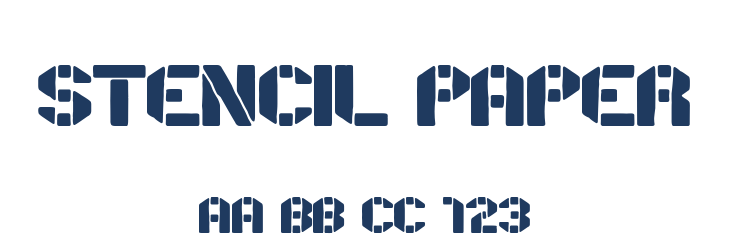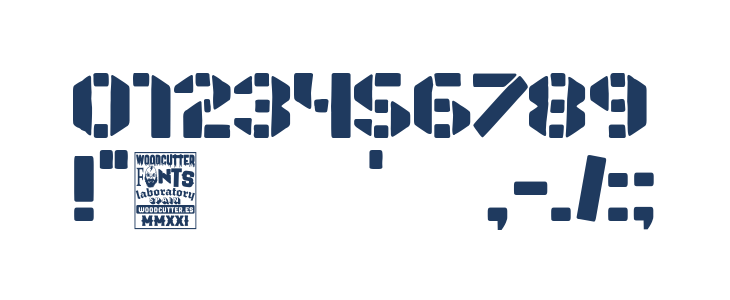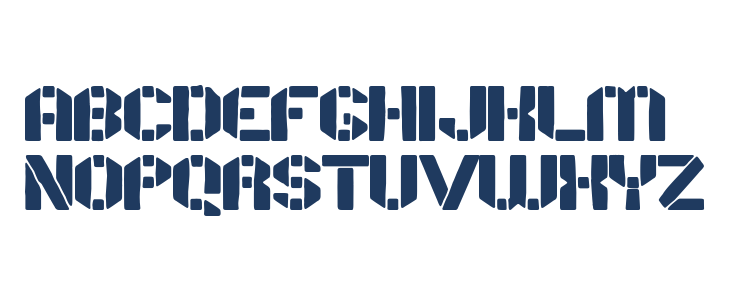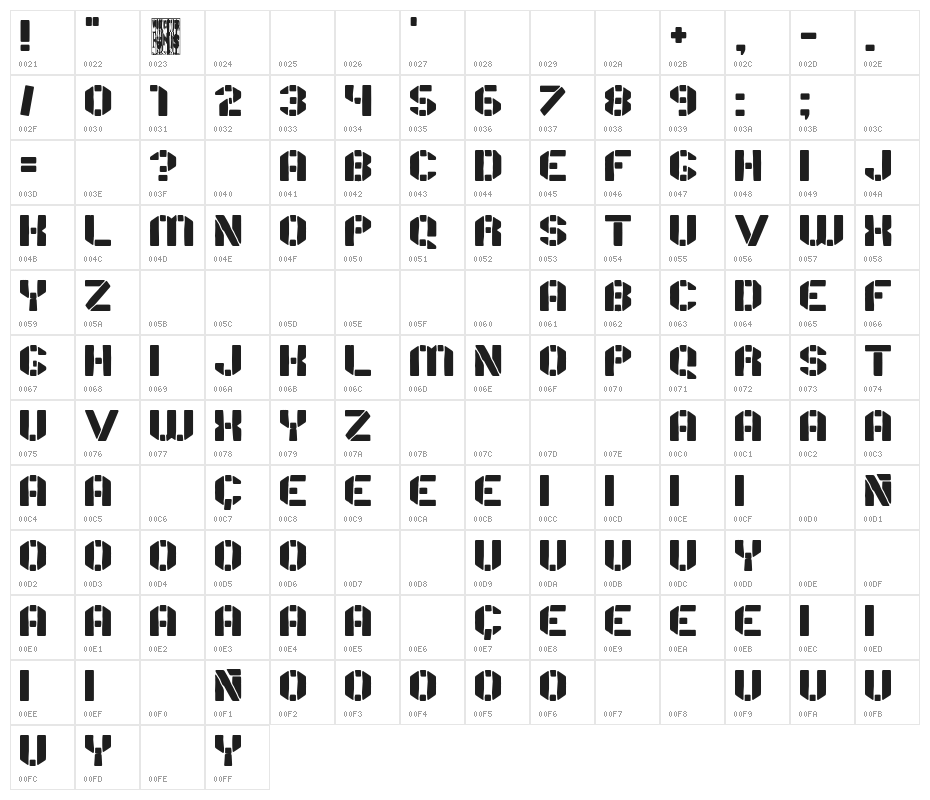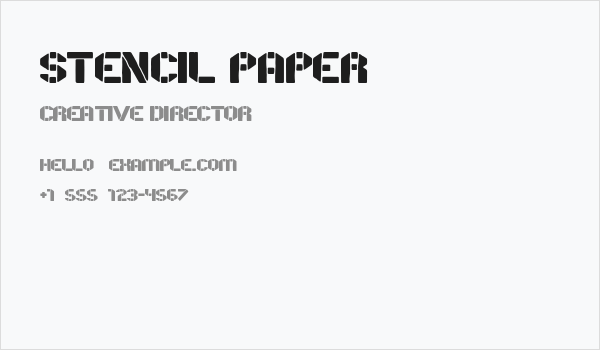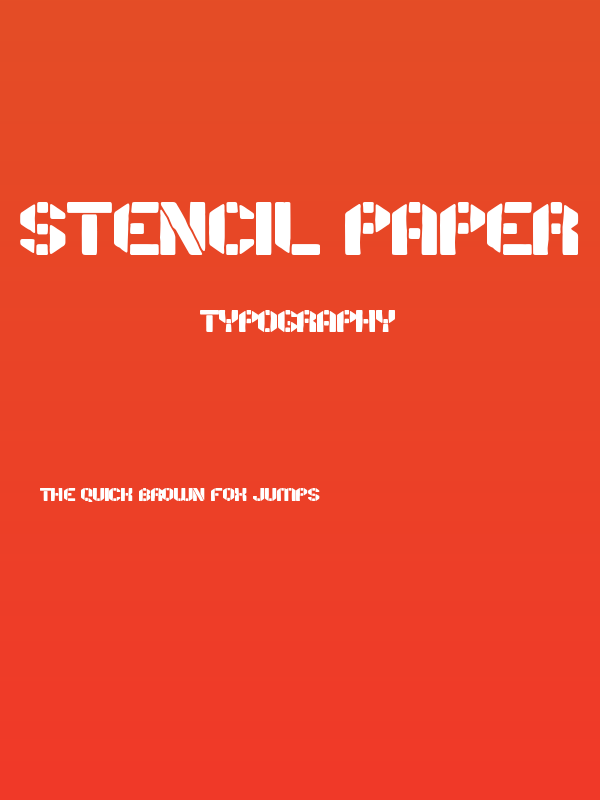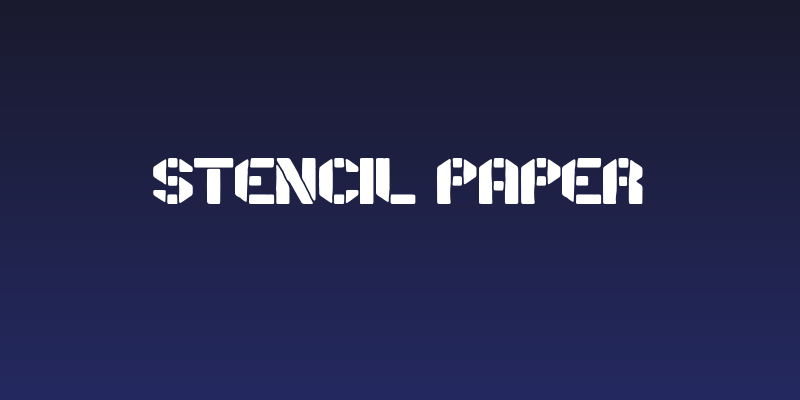
Stencil Paper Font
Stencil Paper Description
A bold, geometric stencil-style font with thick, blocky letterforms and distinct breaks in the strokes, mimicking the look of spray-painted or industrial stencils. All characters are uppercase, with consistent width and angular cuts.
| Overall Style | Industrial, Modern, Decorative |
| Use Case | Headlines, Posters, Logos, Signage |
| Proposed Projects | Posters, military-themed designs, packaging, signage, branding for industrial or urban projects. |